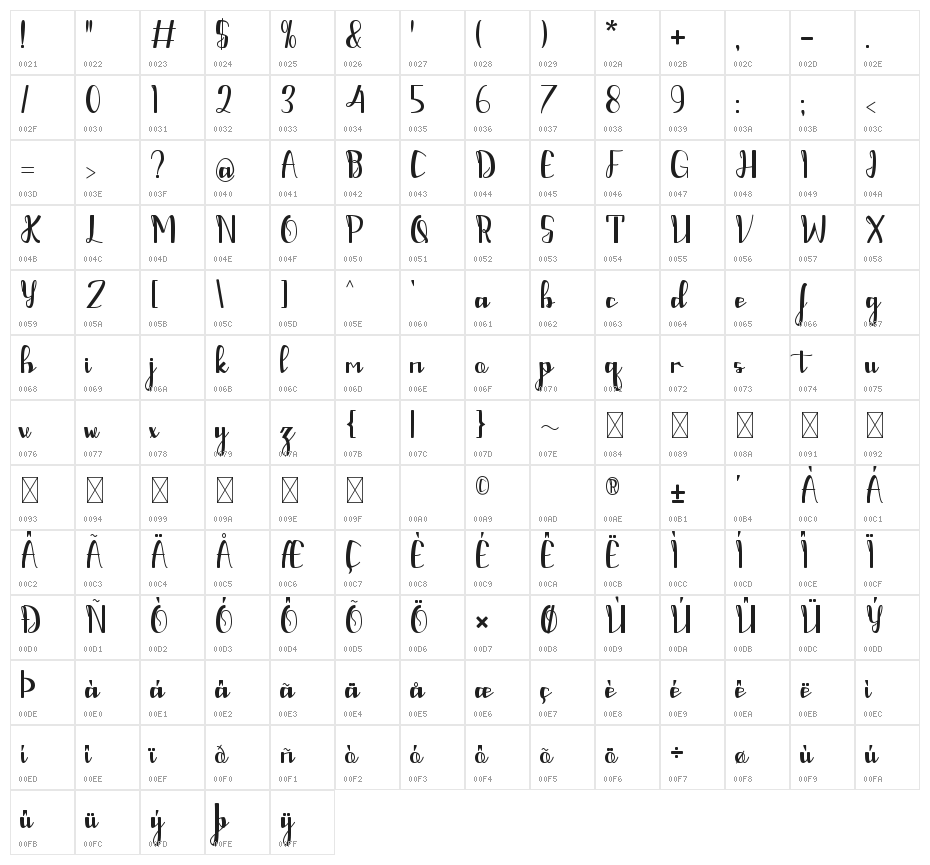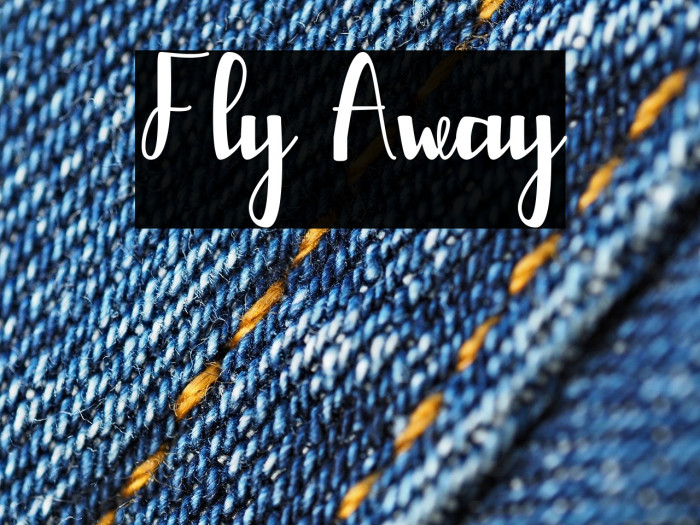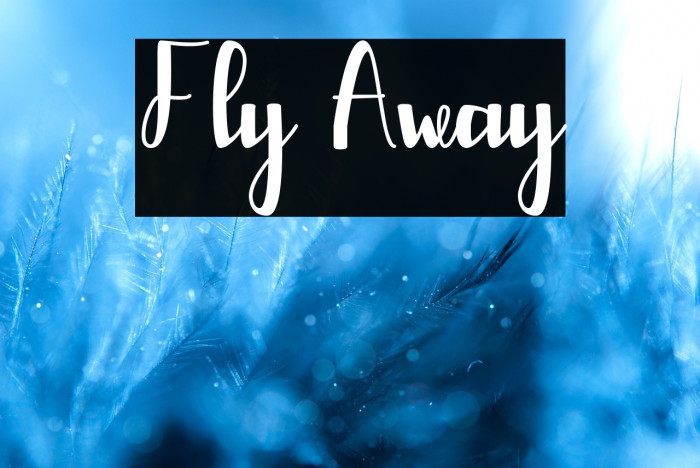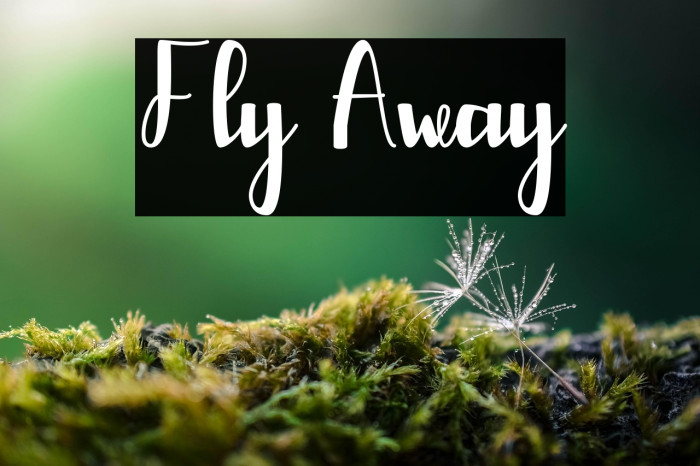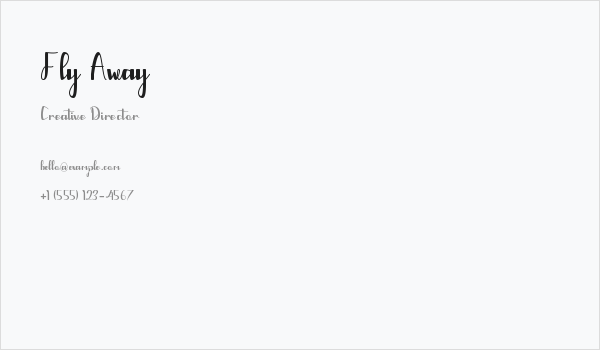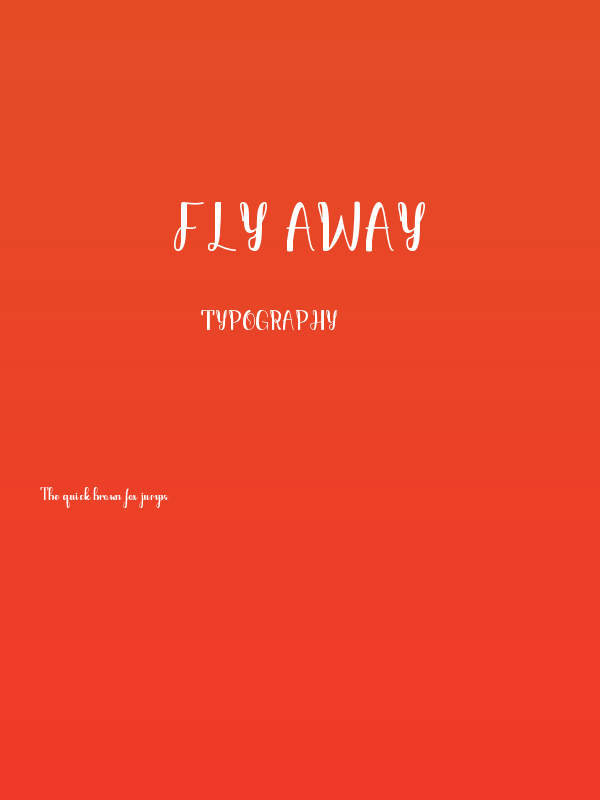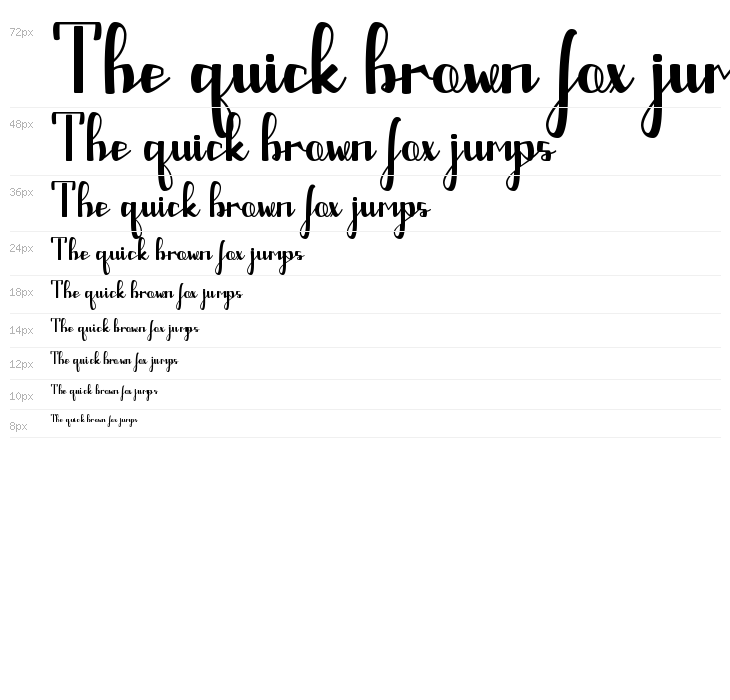
Fly Away Font
Fly Away Description
This font features a playful and dynamic script style, characterized by its flowing, cursive-like strokes and whimsical flair. The uppercase letters exhibit a unique blend of bold and slender lines, creating a sense of movement and energy. The lowercase letters maintain a consistent rhythm, with loops and swirls that add to its charm. Numbers are elegantly crafted, maintaining the font's overall lively aesthetic. Special characters are thoughtfully designed to complement the alphabet, ensuring a cohesive look. This font's distinctive style makes it ideal for creative and expressive projects.
| Use Case | Logos, Invitations, Creative design |
| Proposed Projects | Ideal for greeting cards, invitations, branding, and creative design projects. |